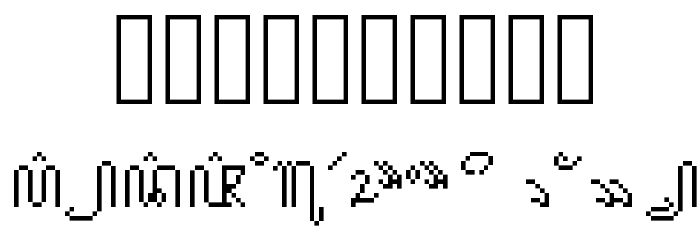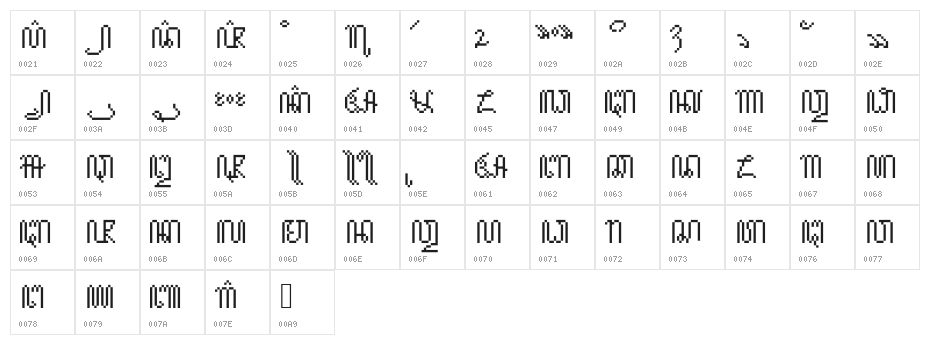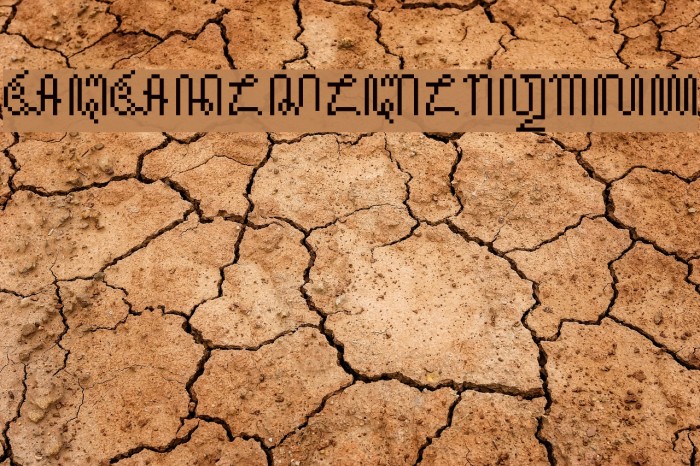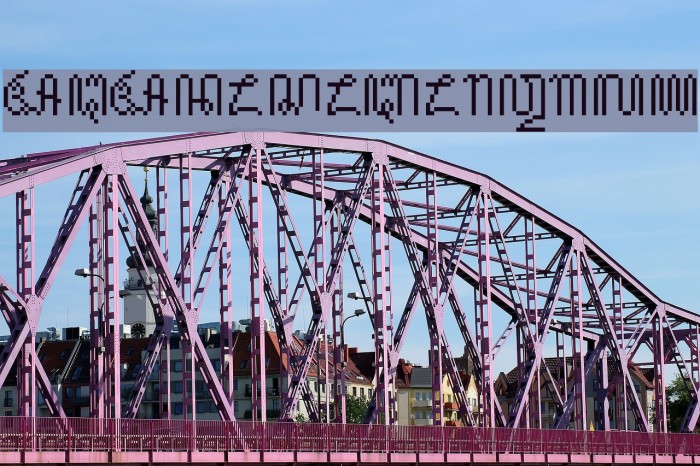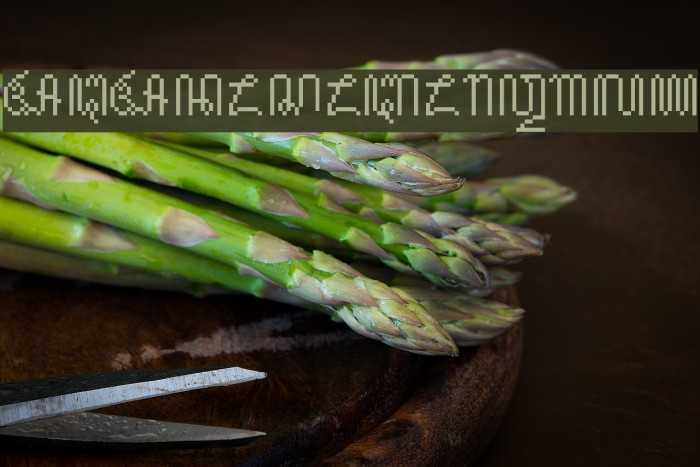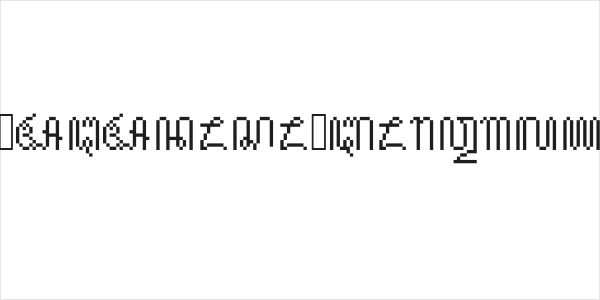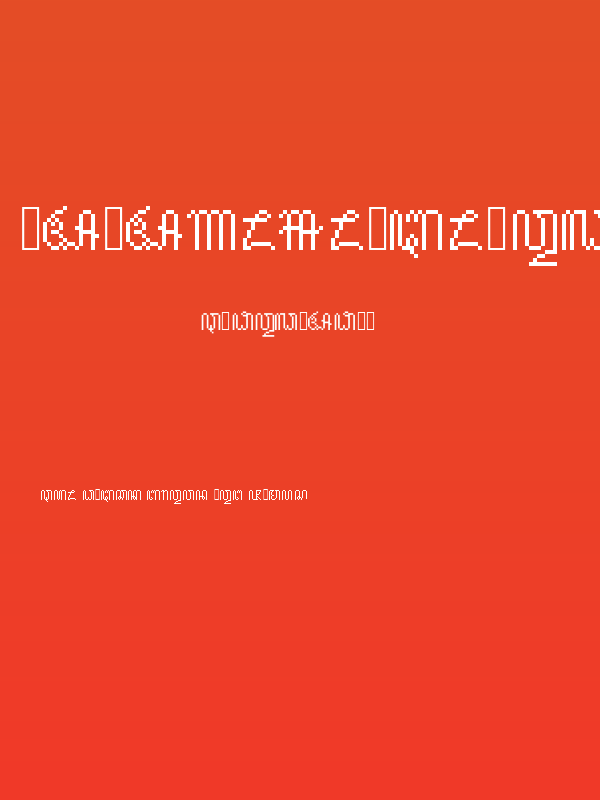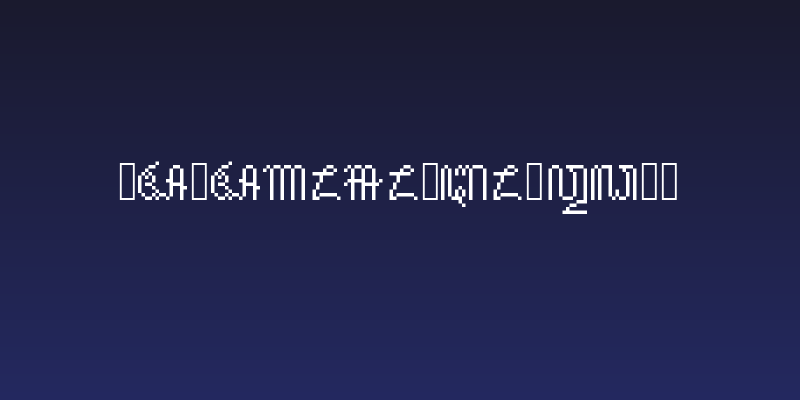
JavaneseHierogly Font
JavaneseHierogly Description
This font is inspired by traditional Javanese script, featuring intricate and decorative characters that resemble ancient hieroglyphs. The design is highly stylized, with each letter exhibiting unique curves and lines that reflect cultural artistry. The characters are bold and distinct, making them stand out with a sense of historical depth. The font's complexity and ornamental nature make it suitable for projects that aim to evoke a sense of tradition and cultural heritage. Its unique style is not only visually striking but also carries a sense of authenticity and historical significance.
| Use Case | Logos, Artistic displays, Cultural projects |
| Proposed Projects | Ideal for cultural projects, historical documentaries, artistic displays, and traditional event invitations. |